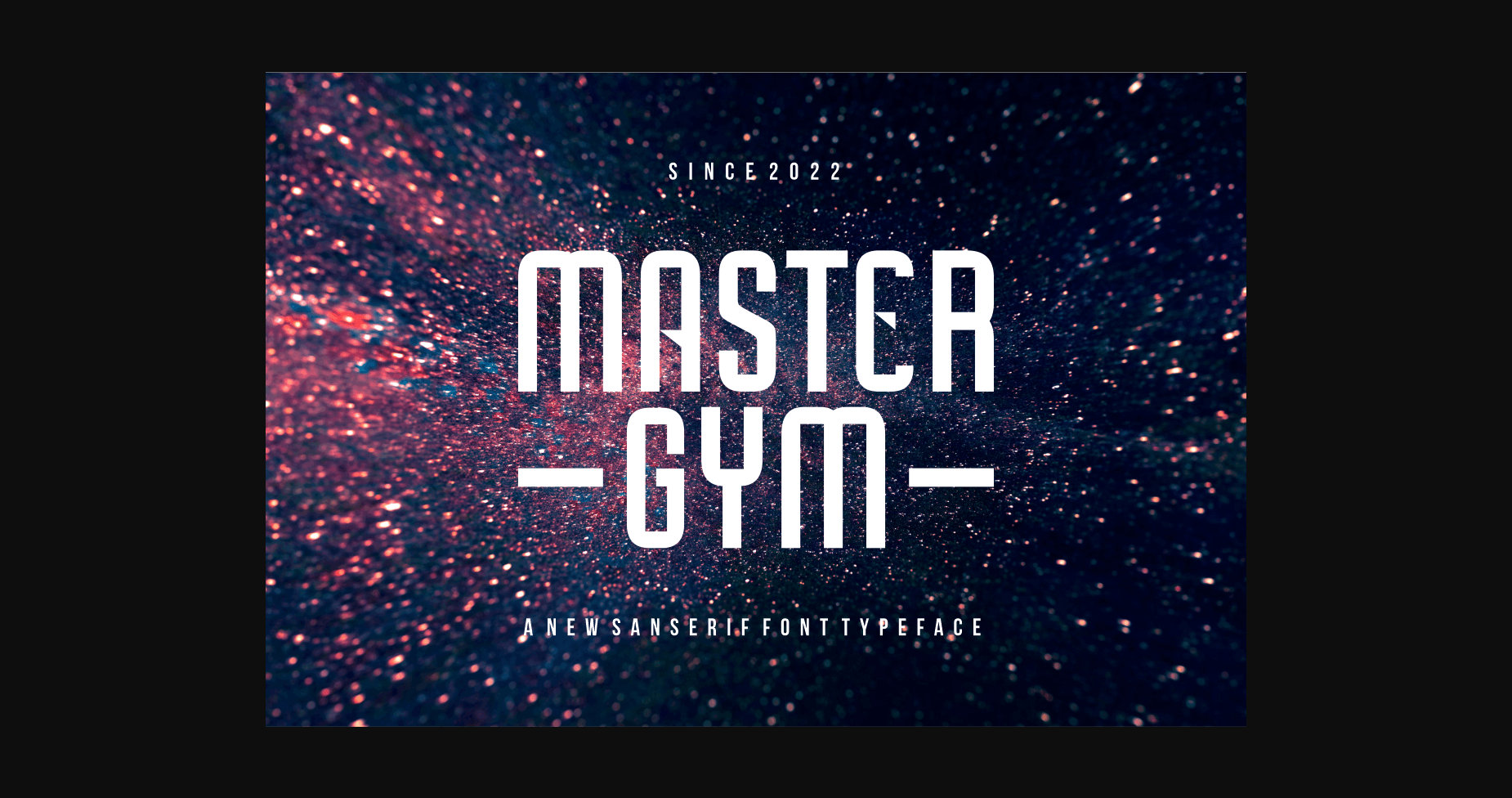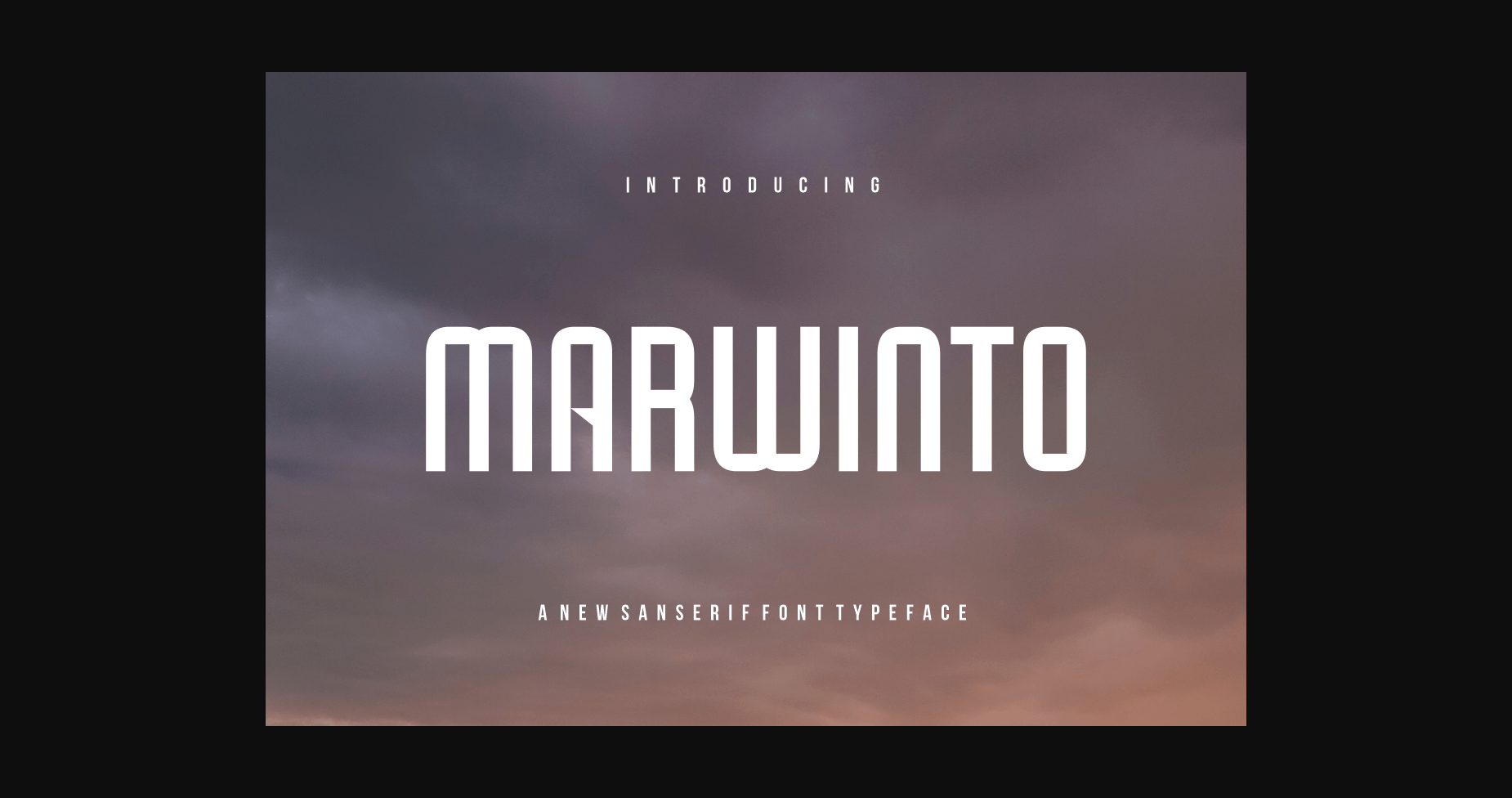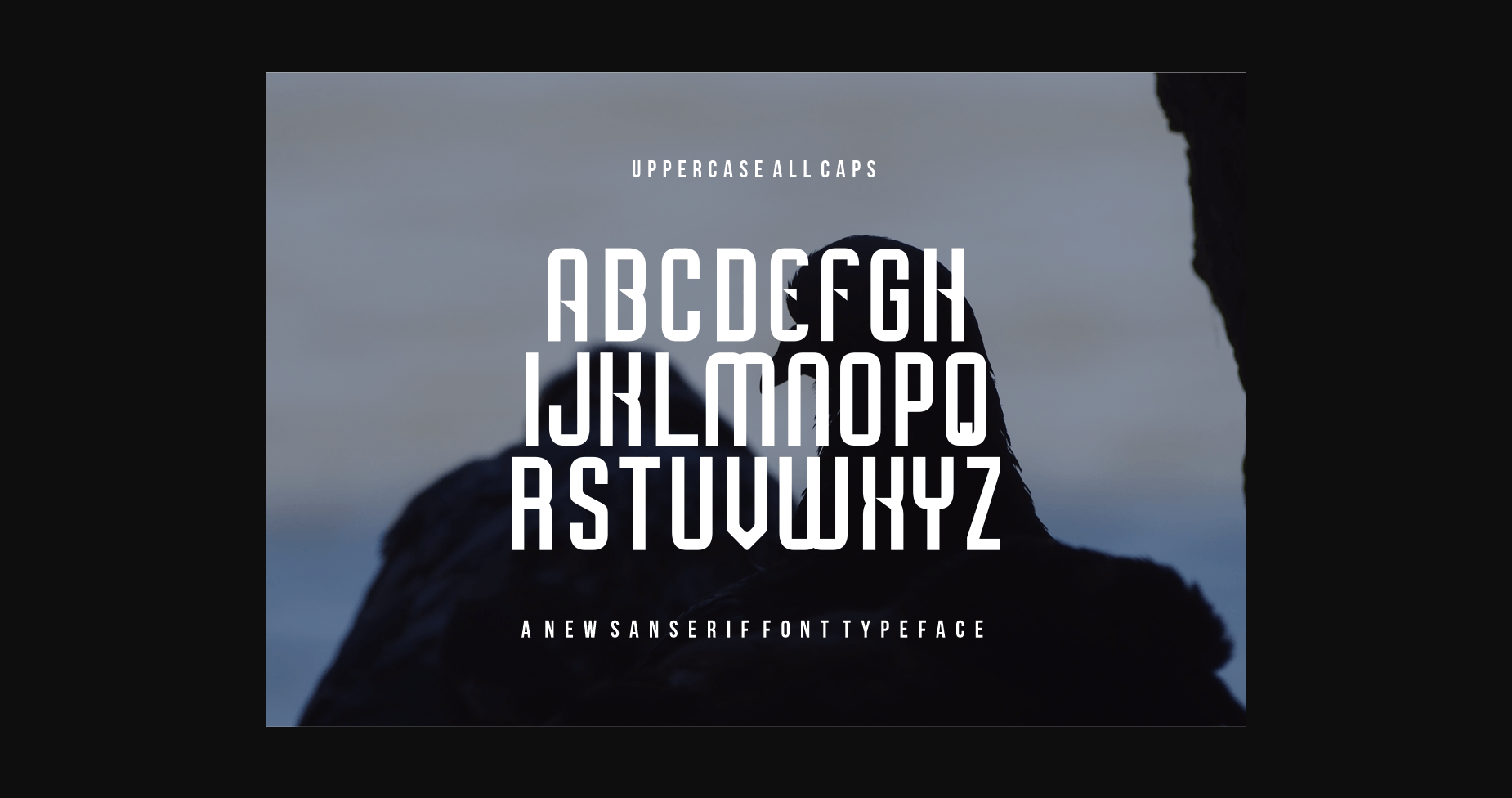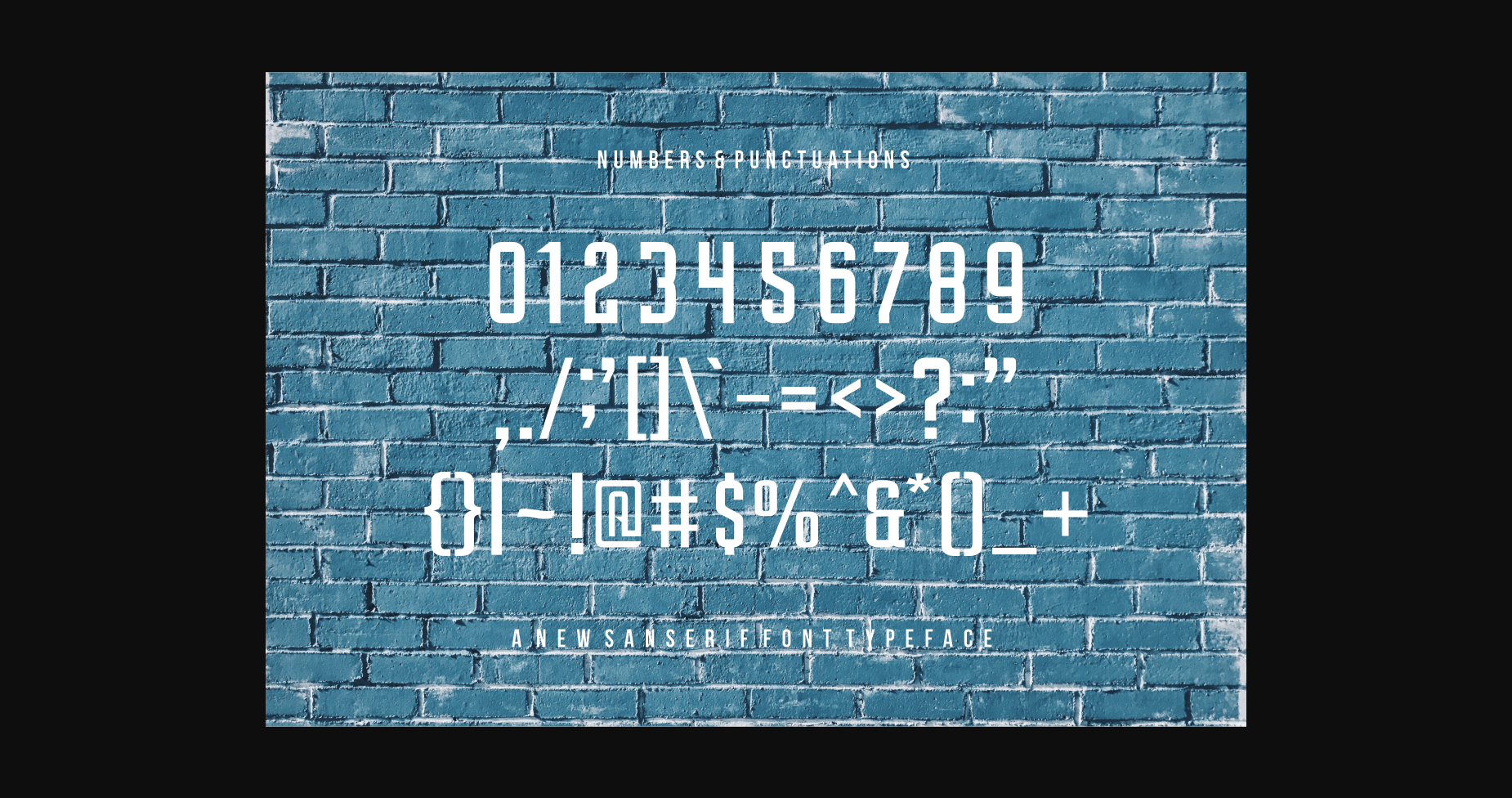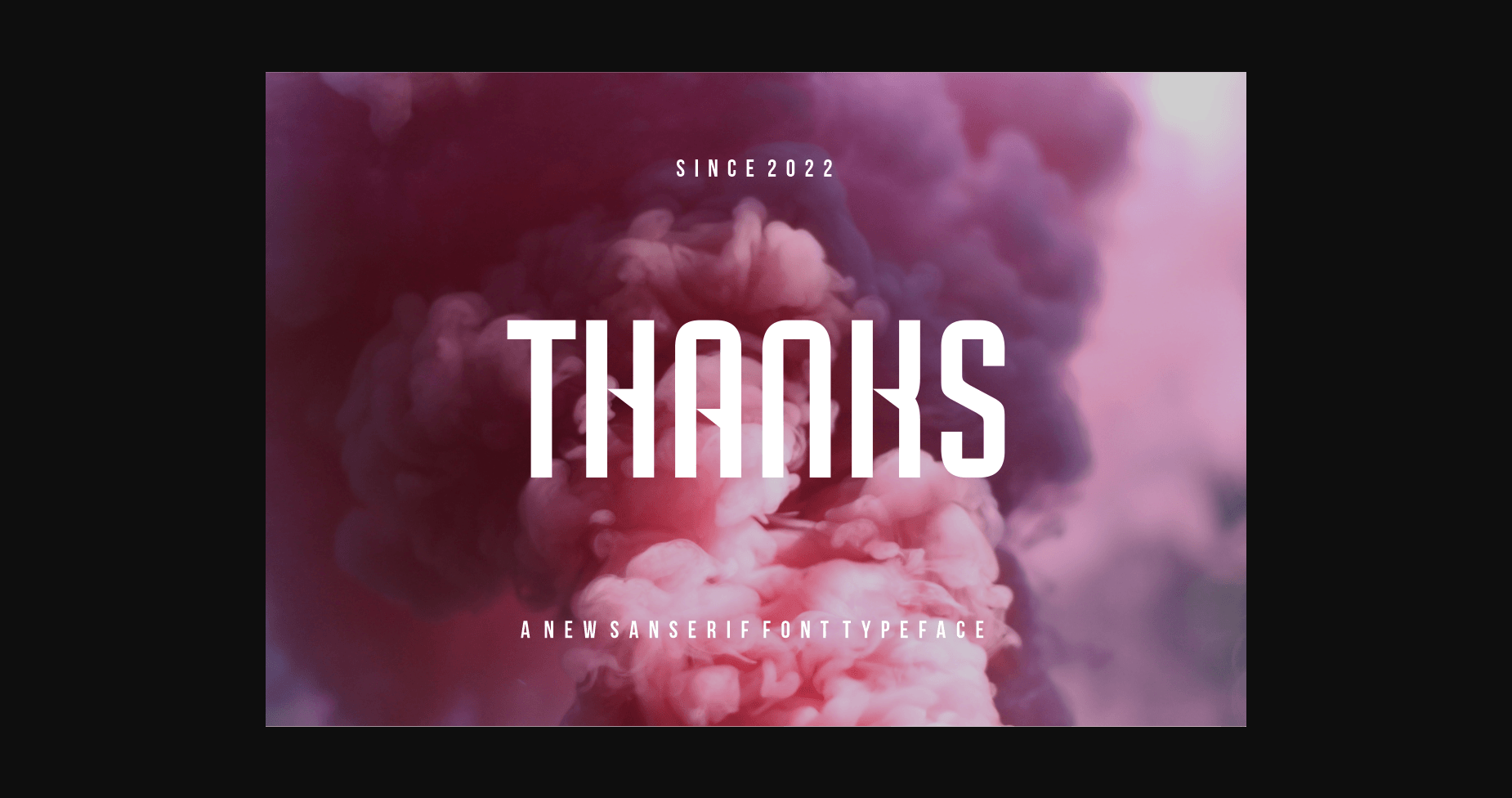
About Marwinto Font
Marwinto is a simple, elegant, and authentic sans serif font. It can easily be matched to an incredibly large set of projects, so add it to your creative ideas and notice how it makes them stand out!